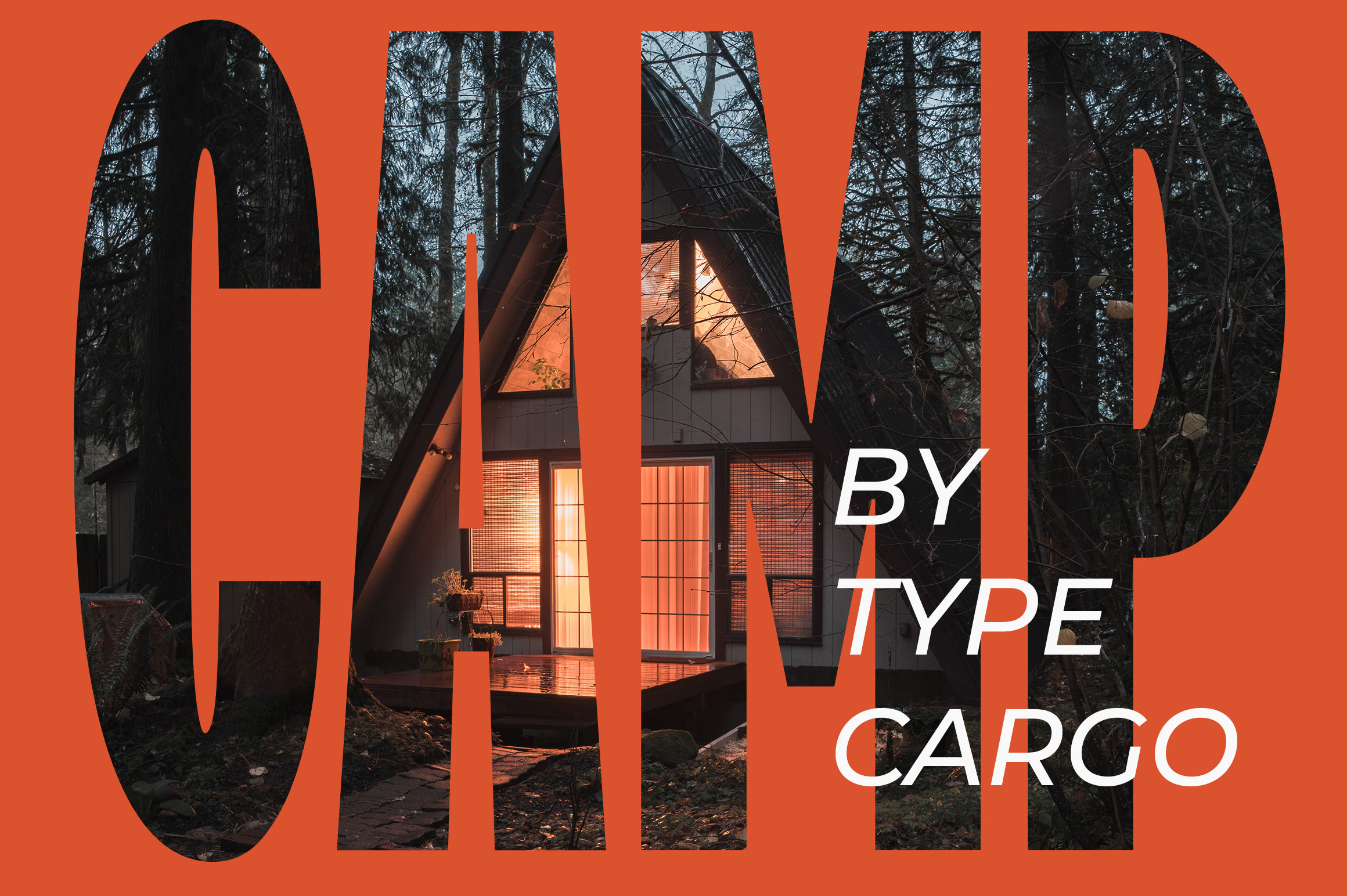
CAMP Display Font
CAMP is a modern display font perfect for attention grabbing headlines, editorial layouts, or anything else you can dream up. It offers uppercase, lowercase, numbers, and special characters.